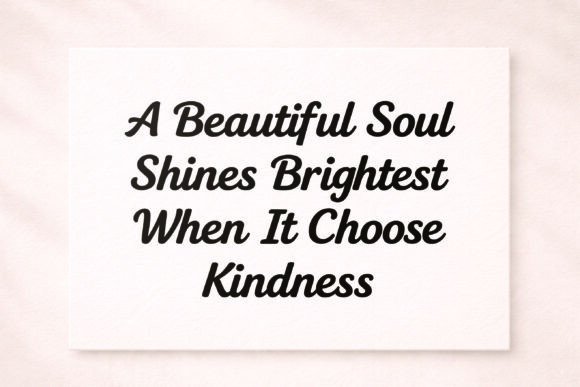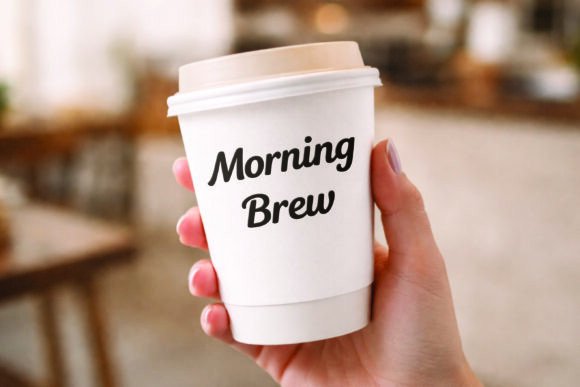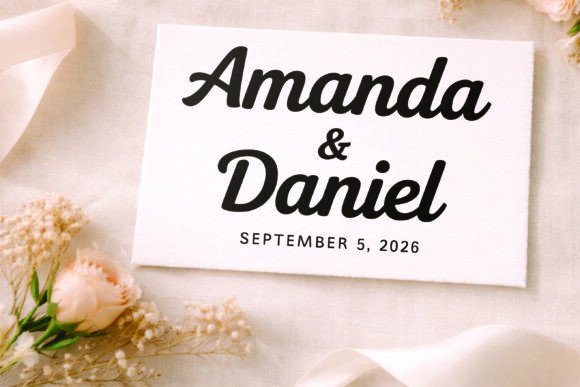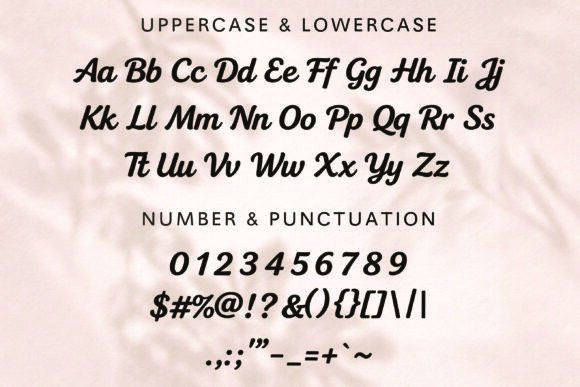
Introduction to Marvella Font
As designers, we’ve all been there – staring at a blank canvas, trying to bring our creative vision to life. The perfect font can make all the difference, elevating our designs from bland to grand. That’s where Marvella Font comes in – a game-changing brush script that’s about to become your new go-to design resource.
With its smooth flowing strokes and naturally connected letters, Marvella Font creates an effortless handwritten feel that’s both bold and friendly. This high-quality font is perfect for designers looking to add a touch of warmth and charm to their creative projects, from elegant branding to casual social media graphics.
Whether you’re working on a logo, invitation, or product packaging, Marvella Font offers the versatility to take your designs to the next level. And the best part? It’s available for free download, making it an essential addition to any designer’s toolkit.
Key Features of Marvella Font
- High-quality, professional design suitable for various creative projects.
- Unique, elegant design with a touch of sophistication, ideal for branding, logos, and packaging design.
Honest Review: Marvella Font
As a designer, I’m always on the lookout for high-quality design resources to elevate my creative projects. The Marvella Font is one such resource that caught my attention. I decided to give it a try and see if it lives up to its promise.
First impressions: the Marvella Font has a beautiful, elegant design that’s perfect for a variety of creative projects. I particularly love the fact that it comes with a transparent background, making it easy to use in different design contexts.
What works well: ✨ The Marvella Font has a wide range of weights and styles, making it incredibly versatile. The font is also well-designed and looks great on both digital and print materials. Additionally, the free download option is a huge plus, making it accessible to designers of all levels.
However, there are some limitations: ⚠️ The font is not as comprehensive as some other options, with limited international character support. Additionally, some users may find the font’s elegant design too minimalist for certain projects.
Overall, I’m impressed with the Marvella Font. While it may not be the perfect solution for every design project, it’s a solid addition to any designer’s toolkit. With its high-quality design, transparent background, and free download option, it’s definitely worth considering for your next creative project.
- Wide range of weights and styles
- Well-designed and versatile
Tips for Getting the Most Out of Marvella Font
Experiment with different font sizes, colors, and combinations to find the perfect look for your creative project. Use the font’s transparent background to create a sense of depth and dimension. Don’t be afraid to pair Marvella Font with other design elements to create a unique and visually appealing design.
Common Use Cases for Marvella Font
Marvella Font is perfect for a variety of creative projects, including branding, marketing materials, presentations, and documents. Its sleek design and high-quality appearance make it a great choice for businesses, entrepreneurs, and designers looking to elevate their visual identity.